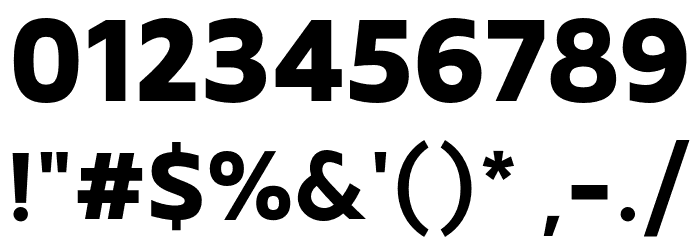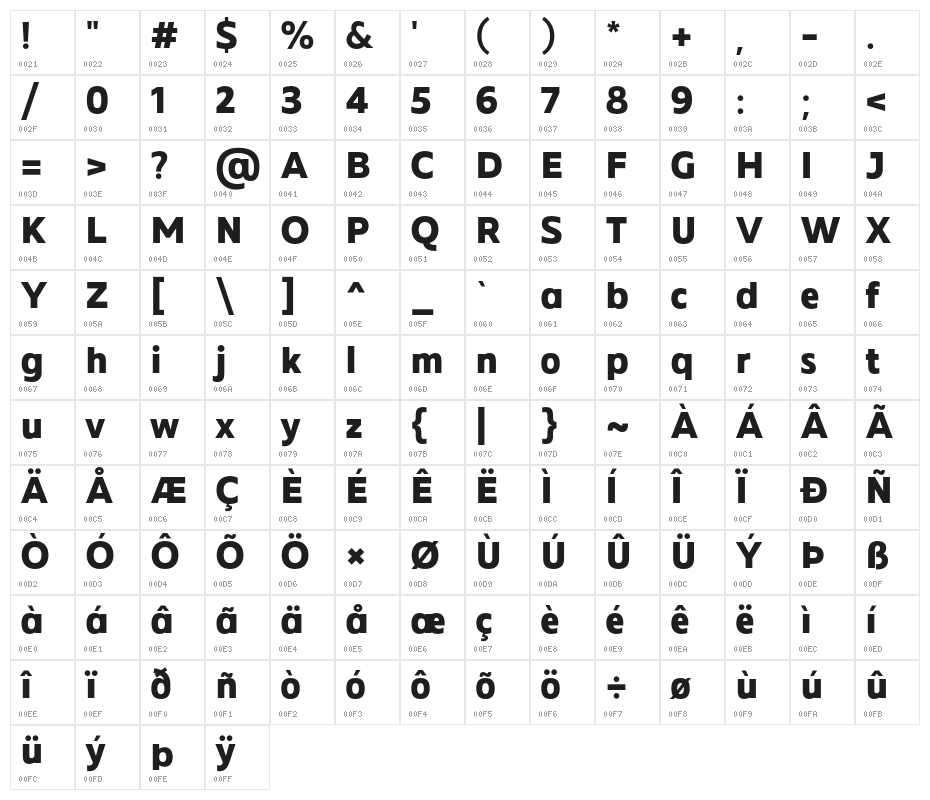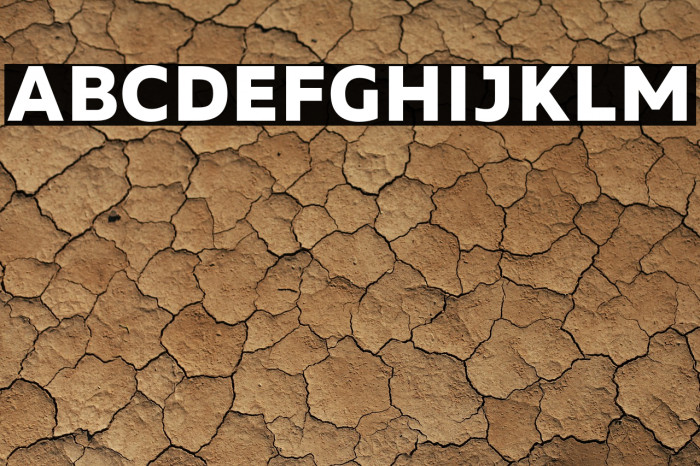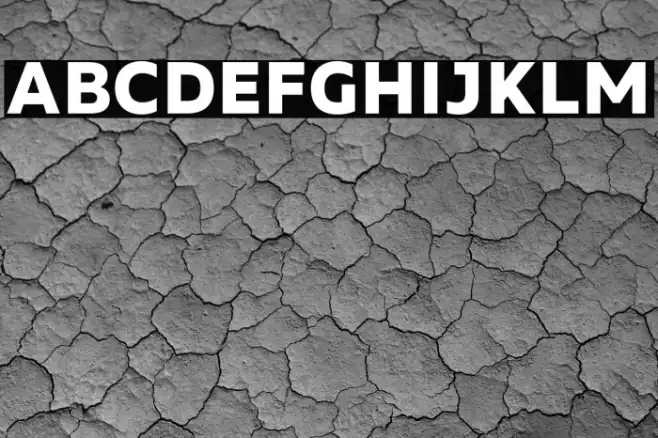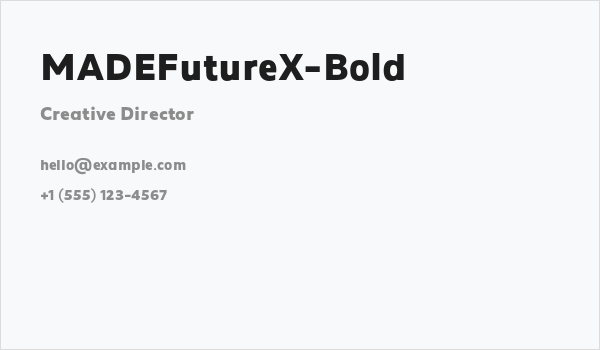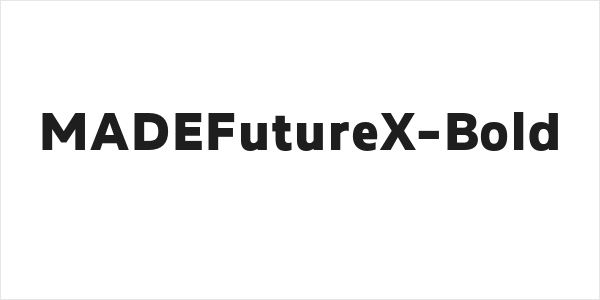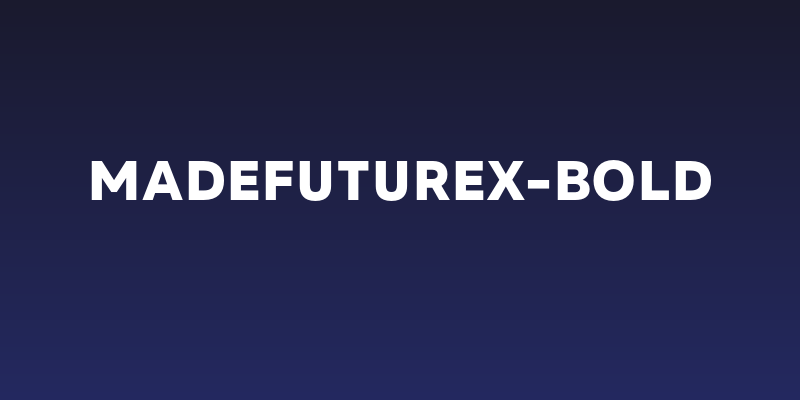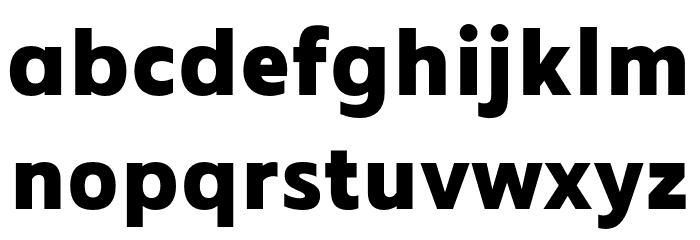
MADEFutureX-Bold Font
MADEFutureX-Bold Description
This font features a bold and modern sans-serif design, characterized by its clean lines and strong presence. The uppercase and lowercase letters are well-proportioned, offering a balanced and harmonious look. The numerals are clear and distinct, making them easily readable. Special characters are included, maintaining the font's cohesive style. The overall appearance is sleek and contemporary, suitable for various design applications.
| Proposed Projects | Ideal for branding, advertising, headlines, and digital media projects where a modern and bold statement is needed. |